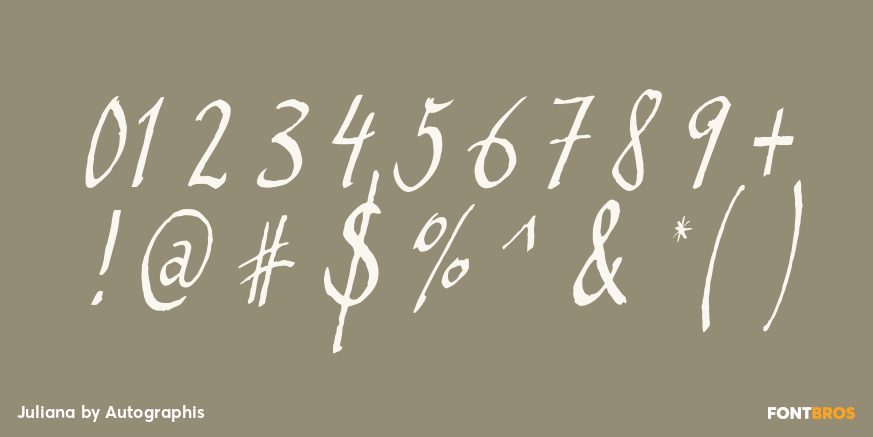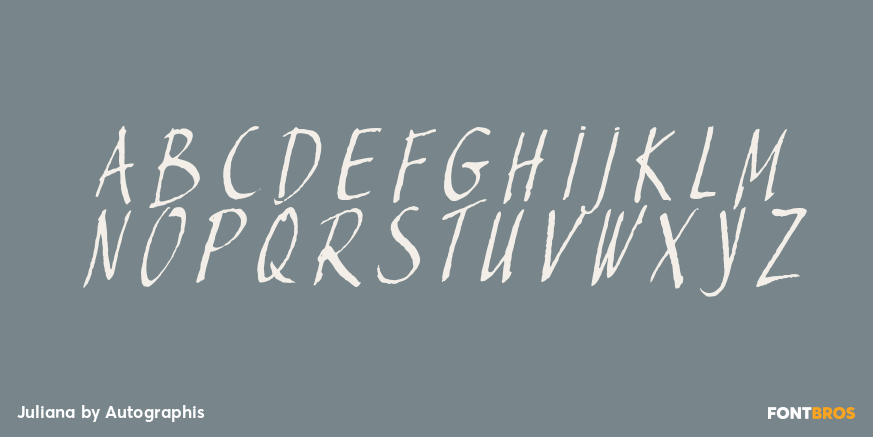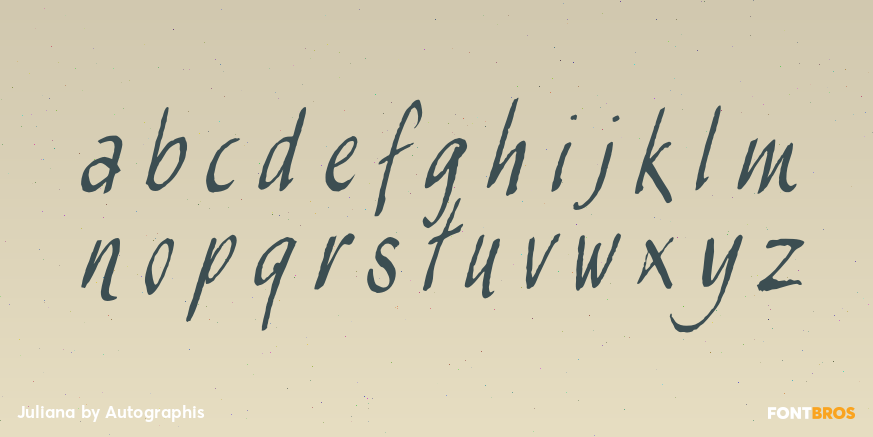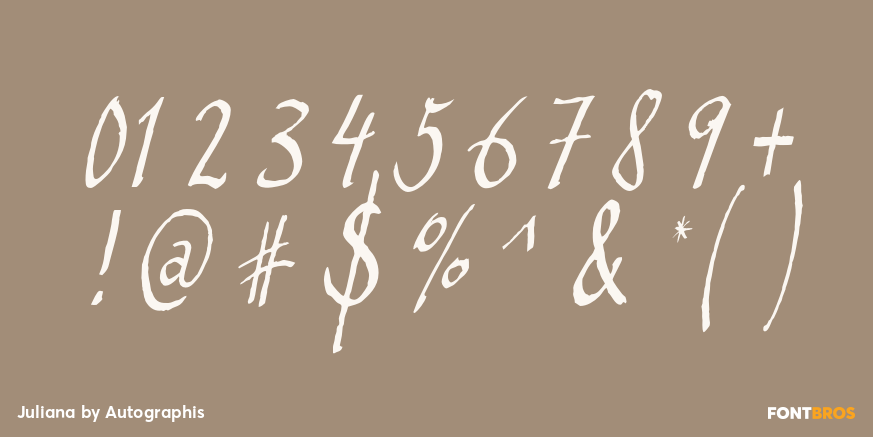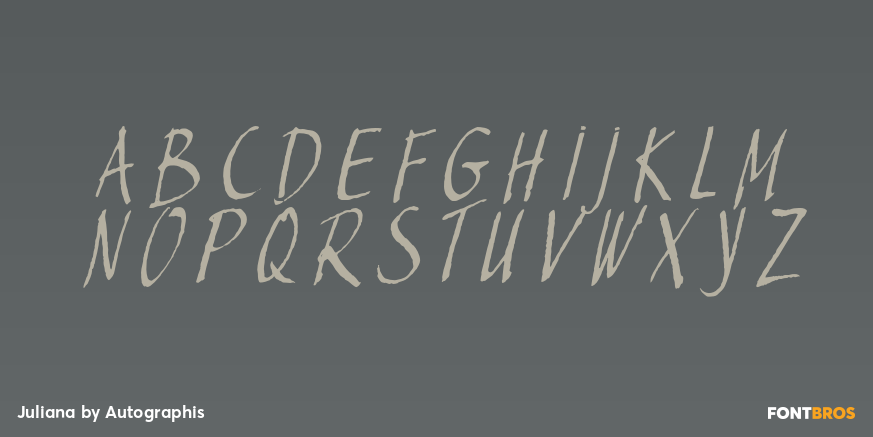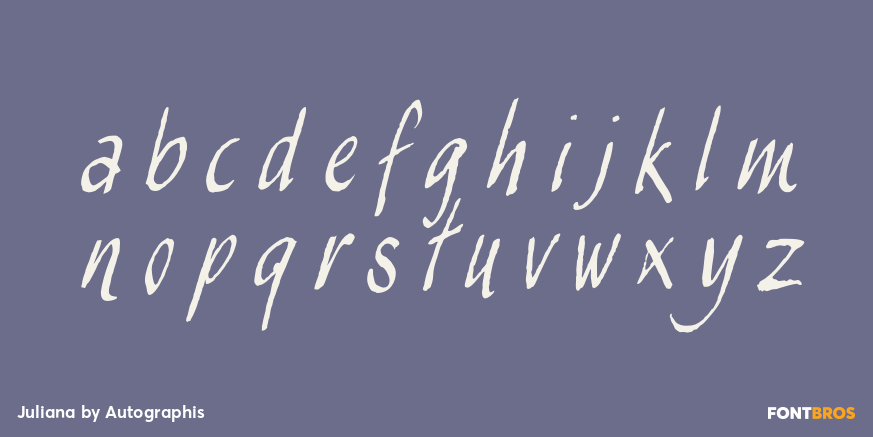
Juliana
Font Family by Autographis
Juliana is a handwritten non-joining condensed script, scanned and finished carefully by hand on screen, with that little bit of extra effort to keep the ?rough? touch.